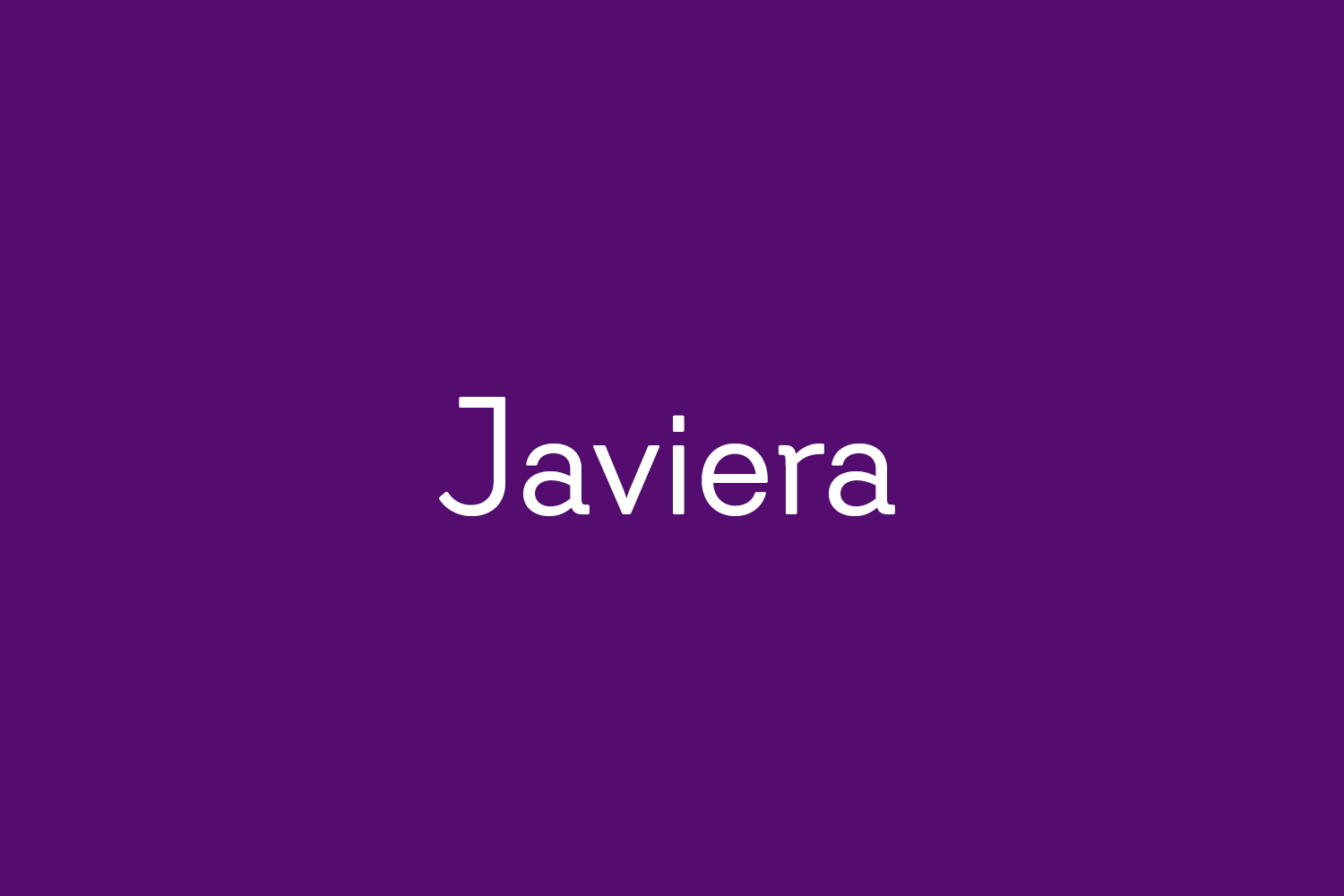
Javiera Free Font Family is developed by Latinotype and is perfect for display use with its small x-height, which makes ascenders and descenders look longer.